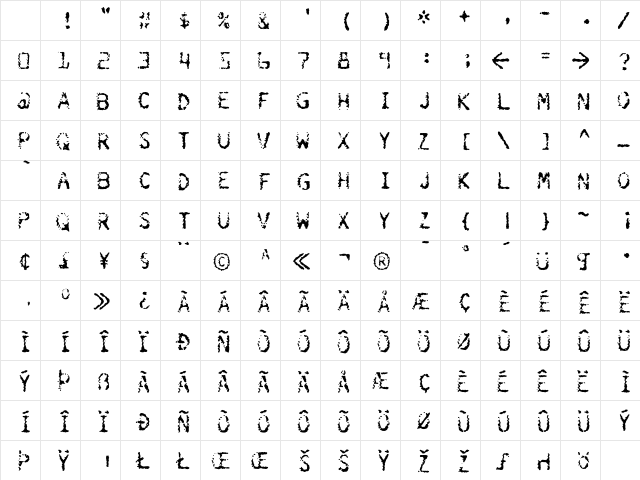
Complete Burokrat Three glyph index. Displaying only characters natively supported by Burokrat Three font.
Burokrat is a composed and adaptable typeface that performs quietly and consistently across a wide range of design contexts.